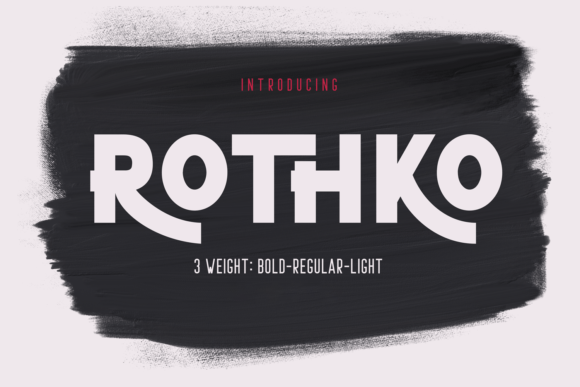
Dive into the captivating world of Rothko, a display font that will ignite your creativity and elevate your designs to new heights. With its bold retro style, Rothko exudes a cool and confident charm that will turn heads.
Rothko is more than just a font; it's an invitation to explore a realm of endless possibilities. Its unique glyphs and effortless swashes, accessible through PUA encoding, empower you to unleash your imagination and create truly captivating designs.
Whether you're crafting logos, posters, or social media graphics, Rothko's striking presence will command attention and leave a lasting impression. Its versatility knows no bounds, adapting seamlessly to a wide range of projects.